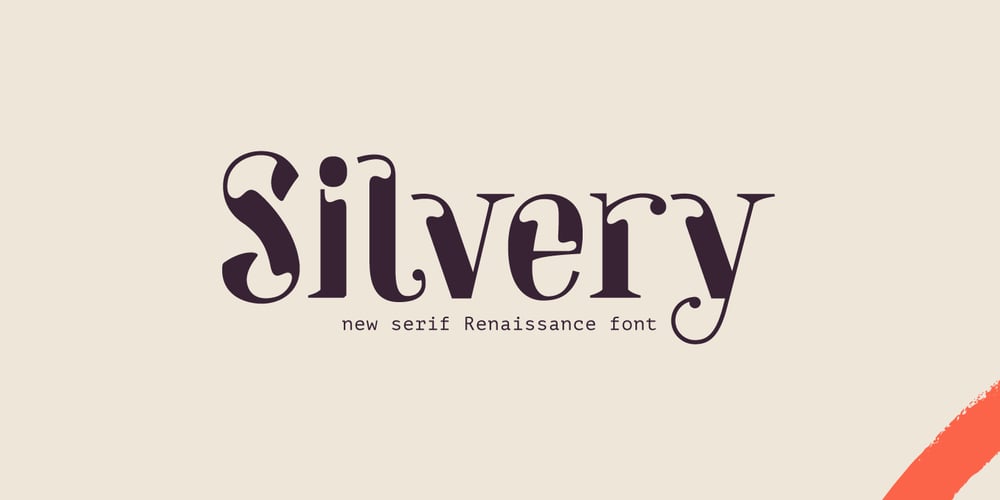
Silvery Font Family was designed by Roman Korolev and published by Kaer. Silvery contains 1 styles and family package options. Introducing my new Renaissance serif typeface Silvery. Vintage font with unique decoration. Perfect to use in any fashion labels, glamour posters, luxury identity, etc.What’s included?* Regular style* Uppercase and lowercase* Numbers* Symbols* PunctuationIf Silvery is not ok, please check Bronze font: https://www.myfonts.com/fonts/kaer/bronzen-abundance/I hope you enjoy this font. Follow my shop to receive updates of products and the very hottest news! If you have any question or issue, please contact me: kaer.pro@gmail.com Please request to add additional characters and glyphs if you need! Thank you!